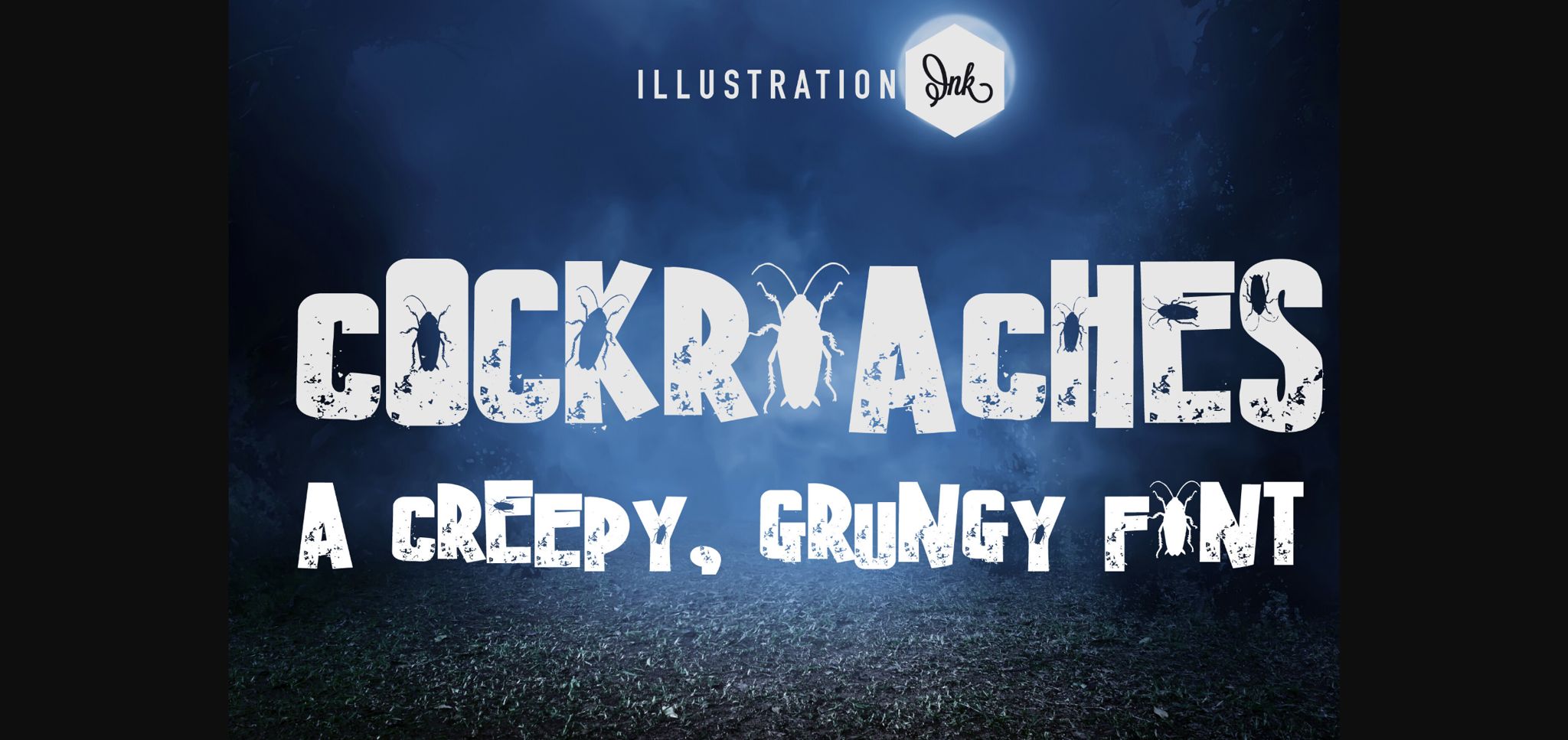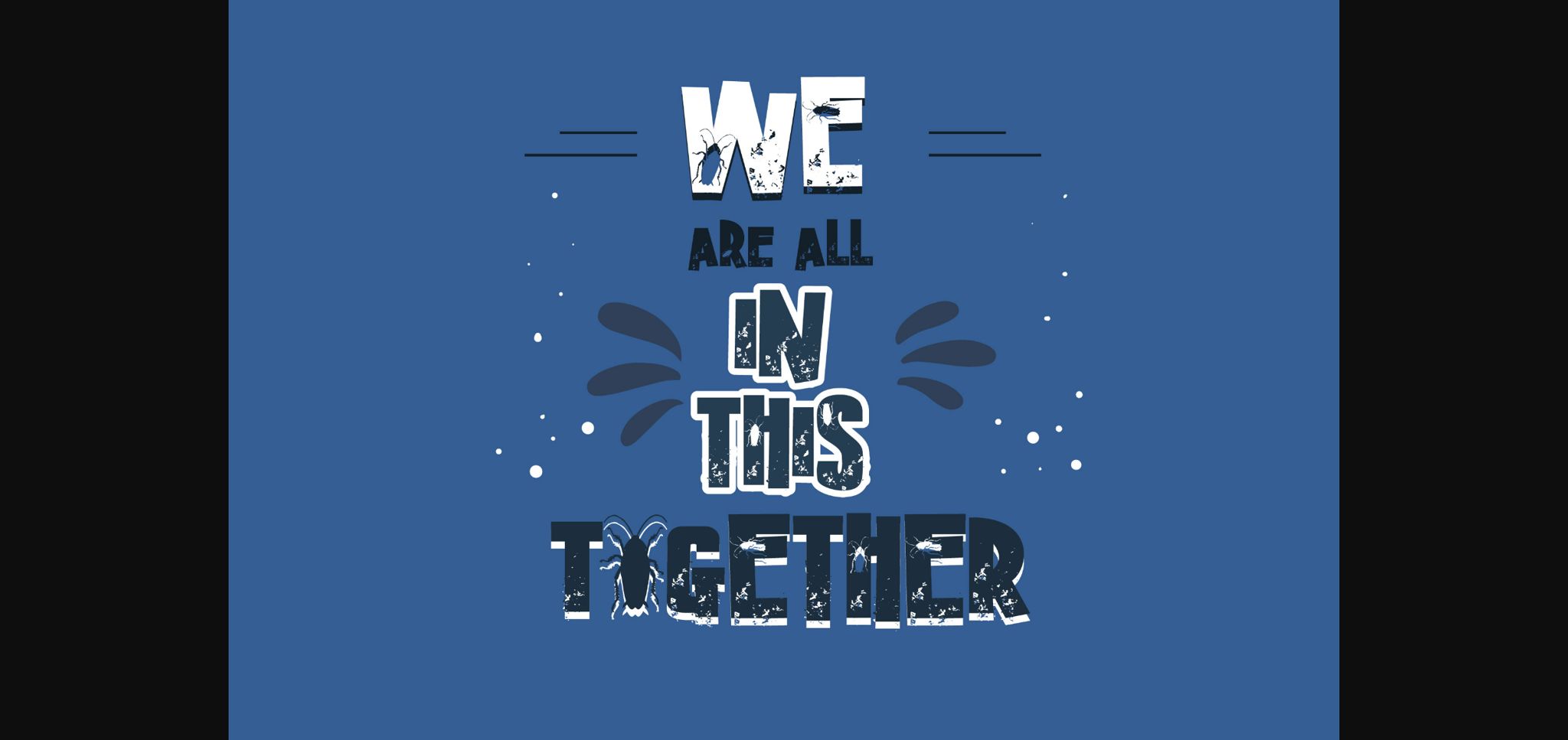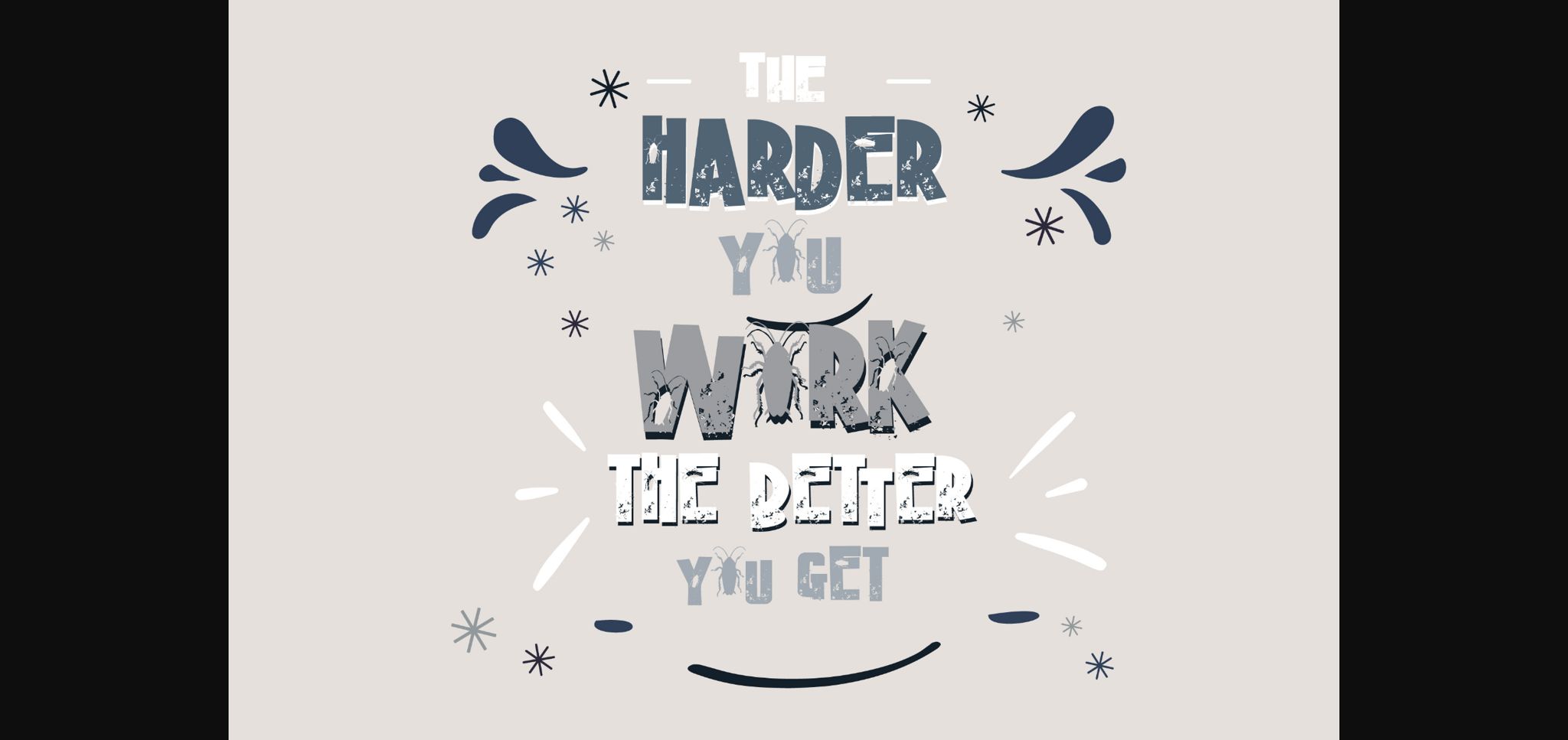
About Cockroaches Font
This hand-crafted font is a grungy sans serif loaded with cockroaches throughout.
A hand-crafted font is a font that is designed to look like it was written by hand. It is often used for invitations, greeting cards, and other items. Handwritten fonts can be either formal or informal, and they can be used for a variety of purposes.